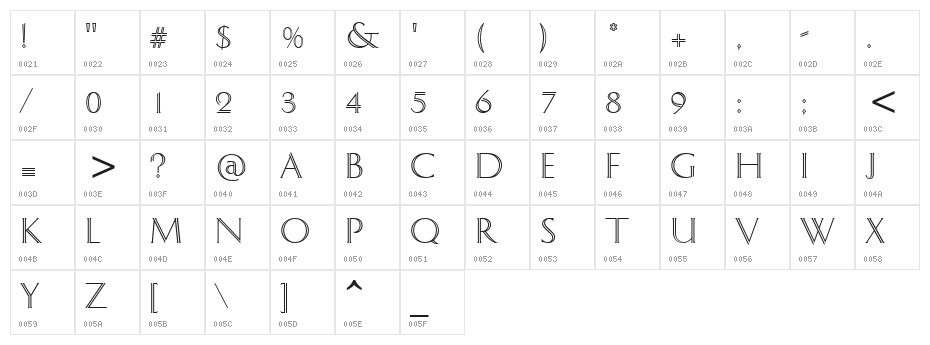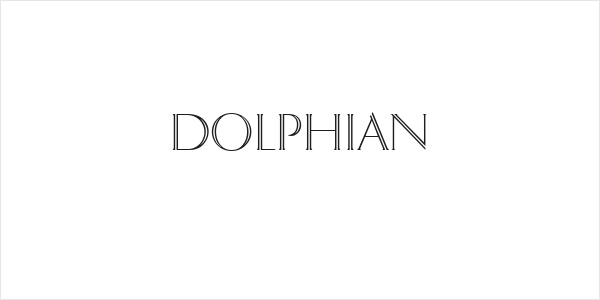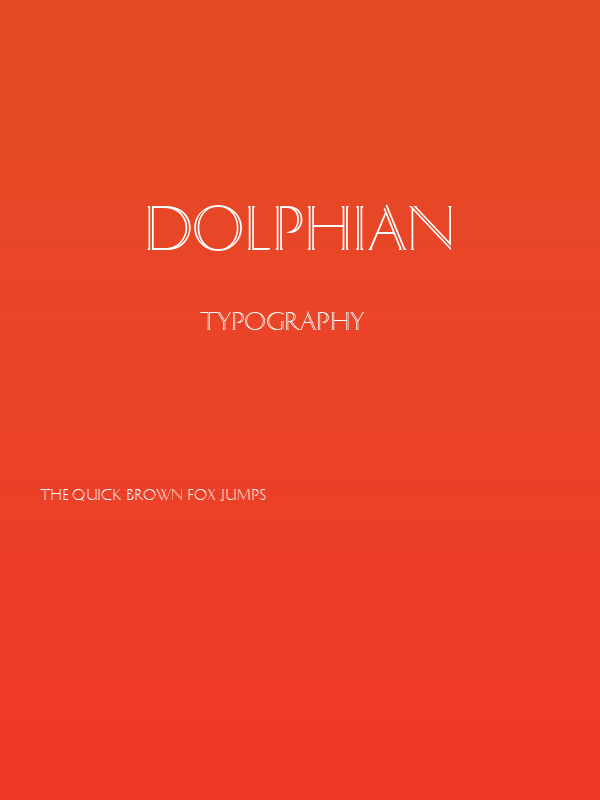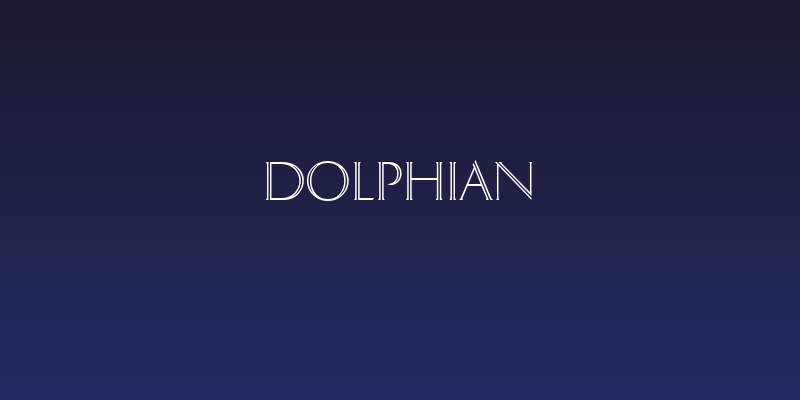
Dolphian Font
| Gesamtstil | Elegant and modern |
| Anwendungsfall | Headlines, Logos, Invitations |
| Vorgeschlagene Projekte | Ideal for luxury branding, fashion magazines, wedding invitations, and high-end product packaging. |